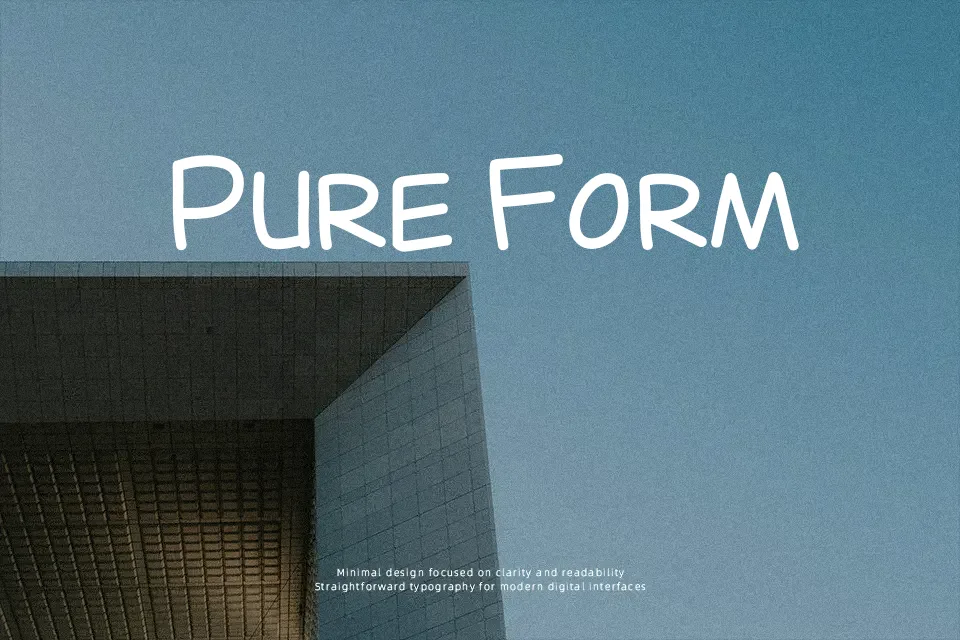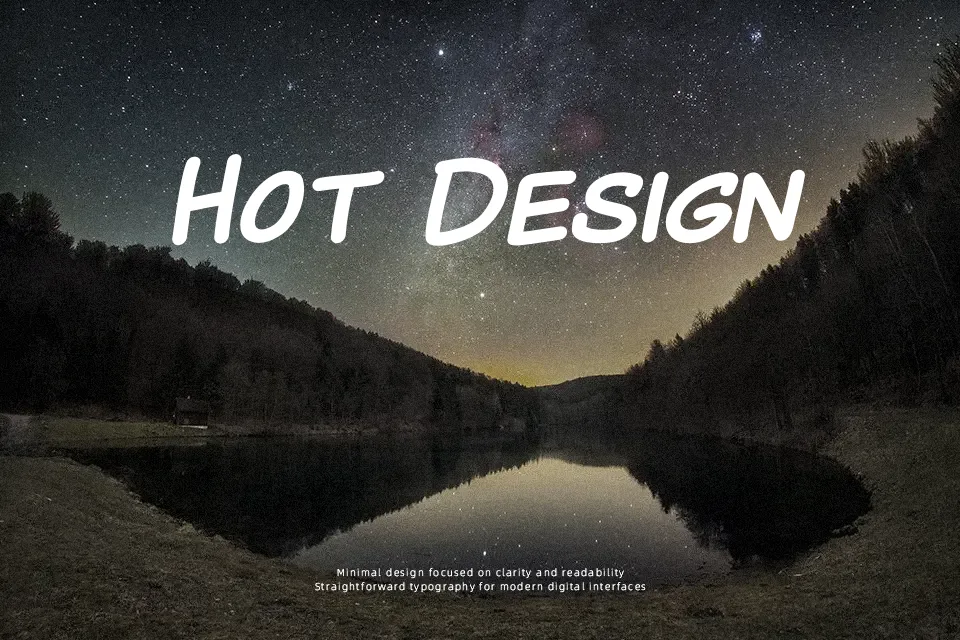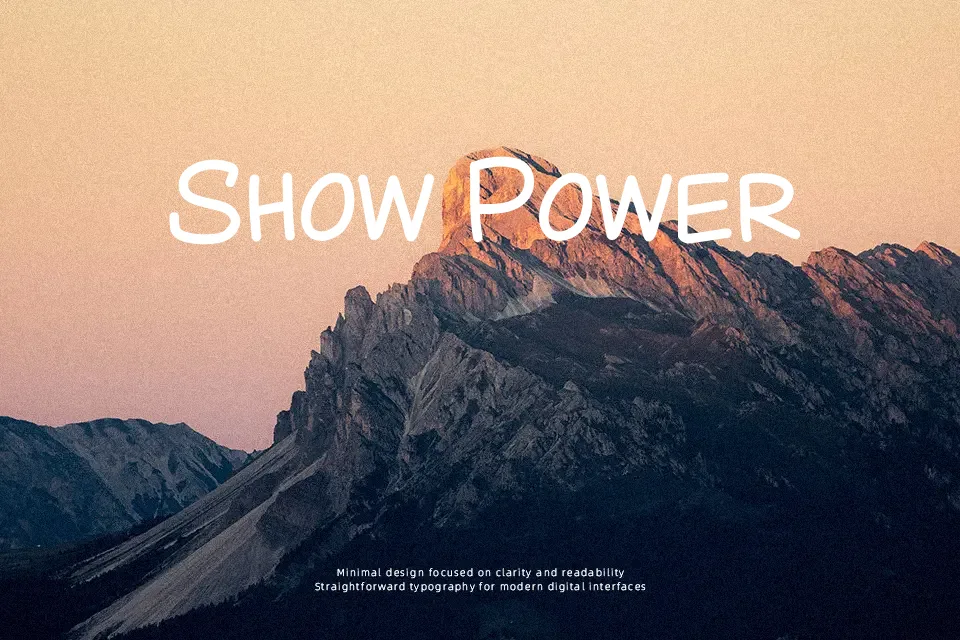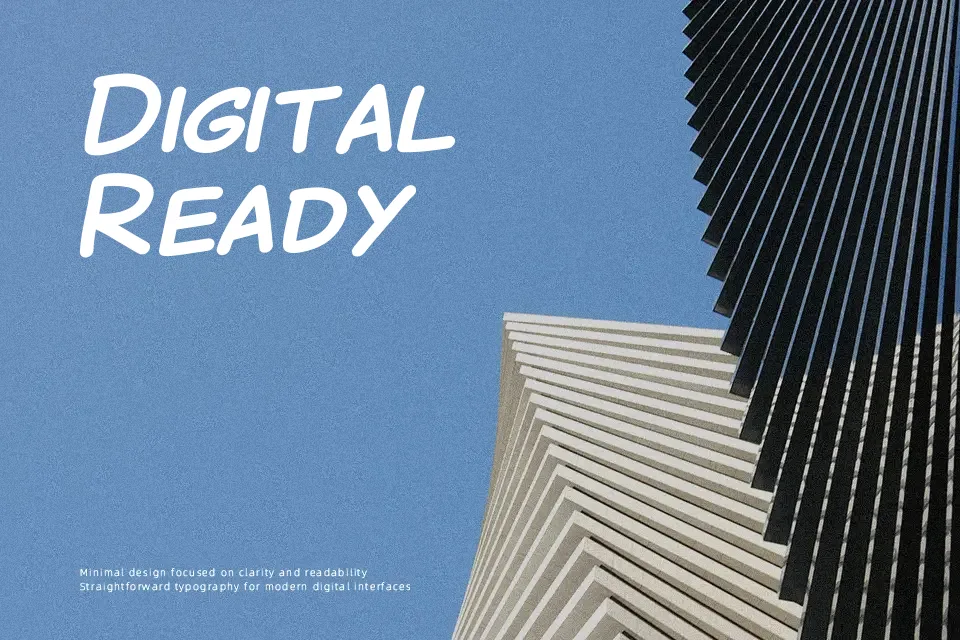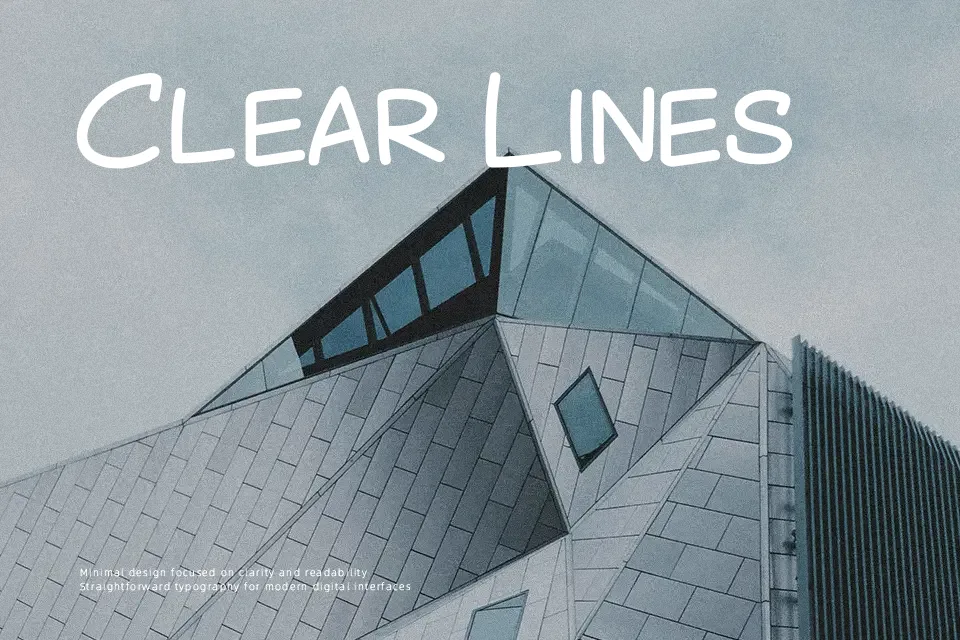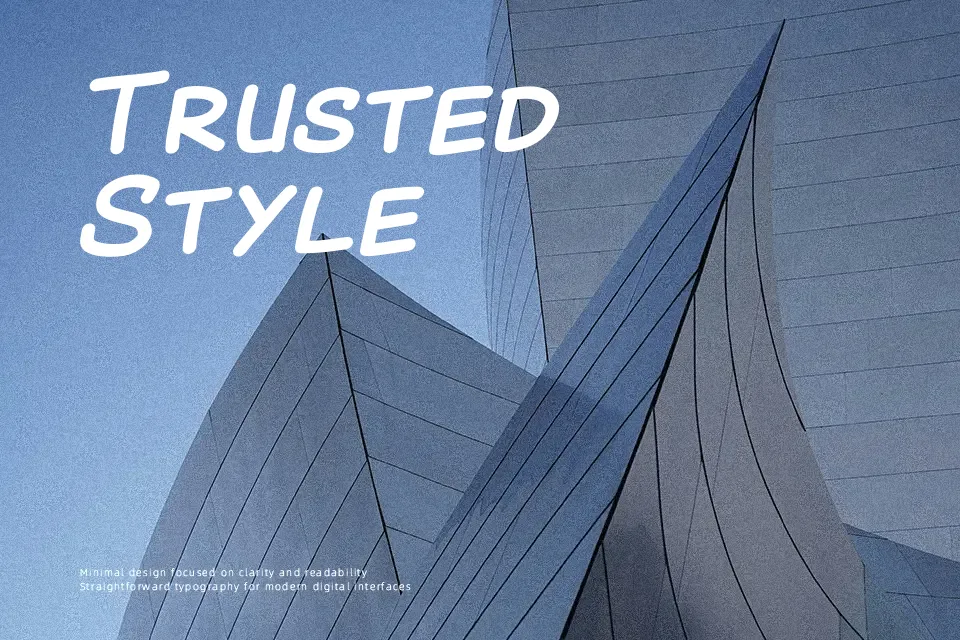
Canted Comic Font
Designed by Nils Cordes
Canted Comic Font functions most effectively when applied to prominent headlines and action-oriented display layouts. The letterforms feature an intentional forward slant, heavy uniform strokes, and subtly rounded terminals that evoke mid-century illustrated publishing. Generous interior counters and compact tracking help preserve character recognition across short phrases, giving titles a punchy, animated rhythm. The solid weights maintain high visual clarity on screen graphics, apparel, and thematic packaging. However, the tilted posture and heavy mass create excessive visual tension in continuous body copy. For dense editorial columns or tiny interface elements, a neutral text typeface remains a far better choice.
Best For: comic book sound effects, arcade video game titles, children storybook covers, animated video thumbnails
Not Ideal For: continuous paragraph reading, legal contract text, mobile app interface labels, technical documentation